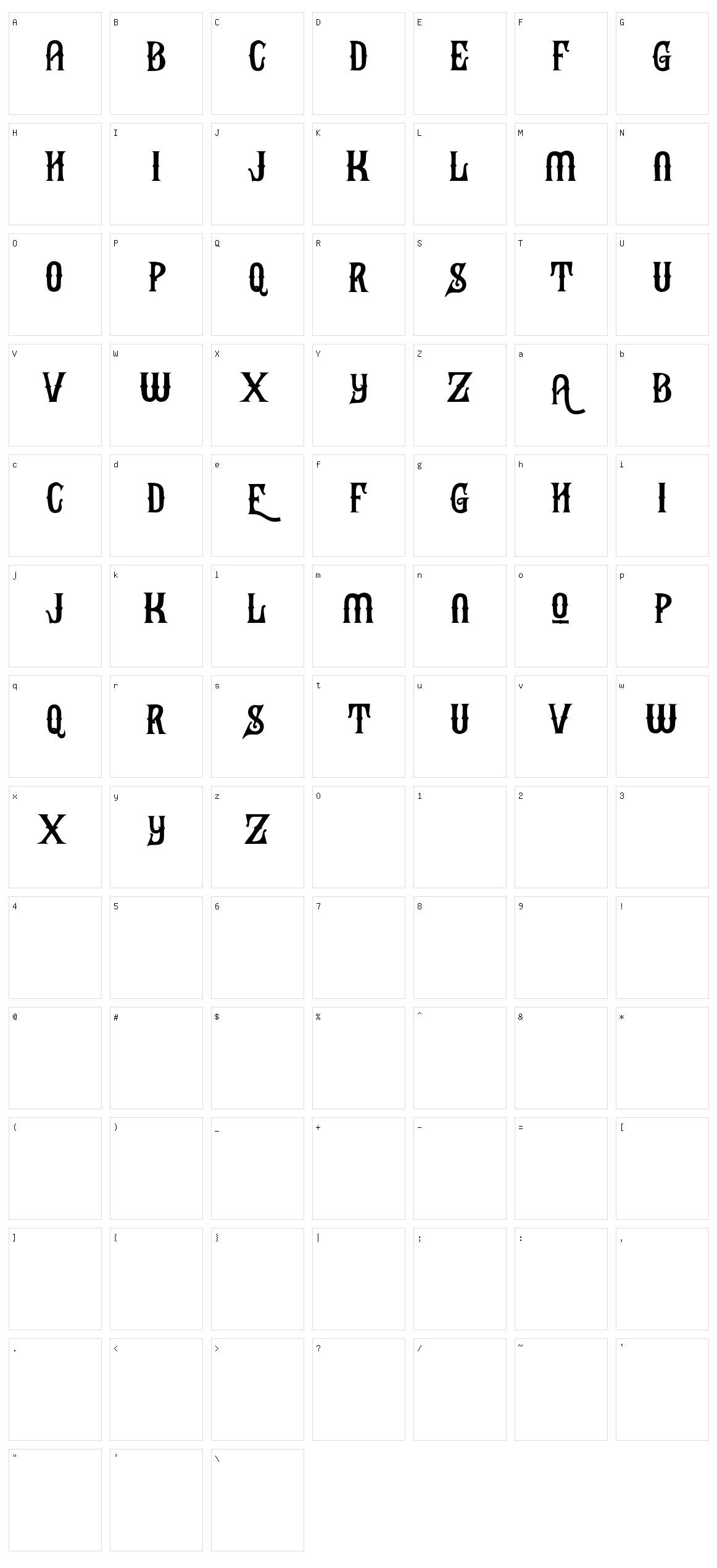
Black Heat - a modern vintage typeface style with decorative characters and a dancing baseline! So beautiful on invitation like greeting cards, branding materials, business cards, quotes, posters, and more!
Black Heat come with The alternative characters were divided into several Open Type features such as Stylistic Sets,
Features :
Stylistic sets
Basic Latin A-Z and a-z
Numbers
International Symbols Support